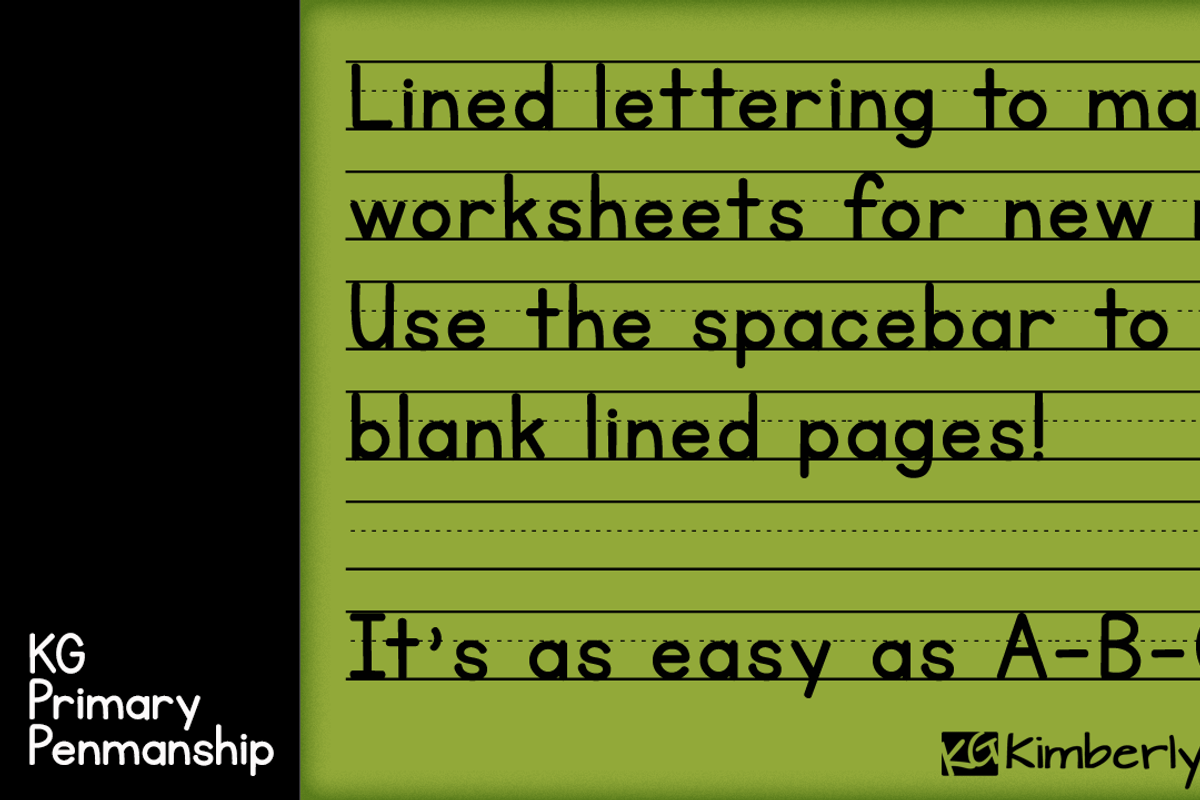
KG Primary Penmanship Fonts
KG Primary Penmanship Fonts by Kimberly Geswein Fonts is a font selected for branding, posters, packaging, typography.
- Includes accented glyphs including cedillas, macrons, acutes, graves, breves, dots, rings, circumflex, etc...
- One font is lined, one font is unlined, and one font is unlined with wider kerning.
KG Primary Penmanship Fonts by Kimberly Geswein Fonts fits naturally into Branding, posters, packaging, typography.